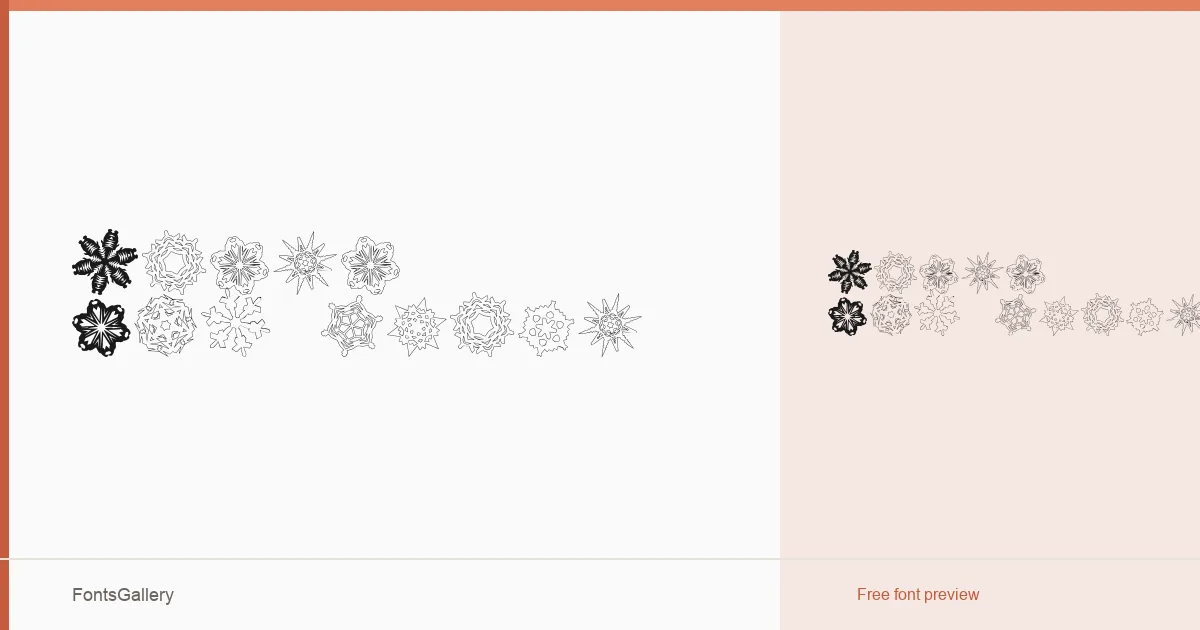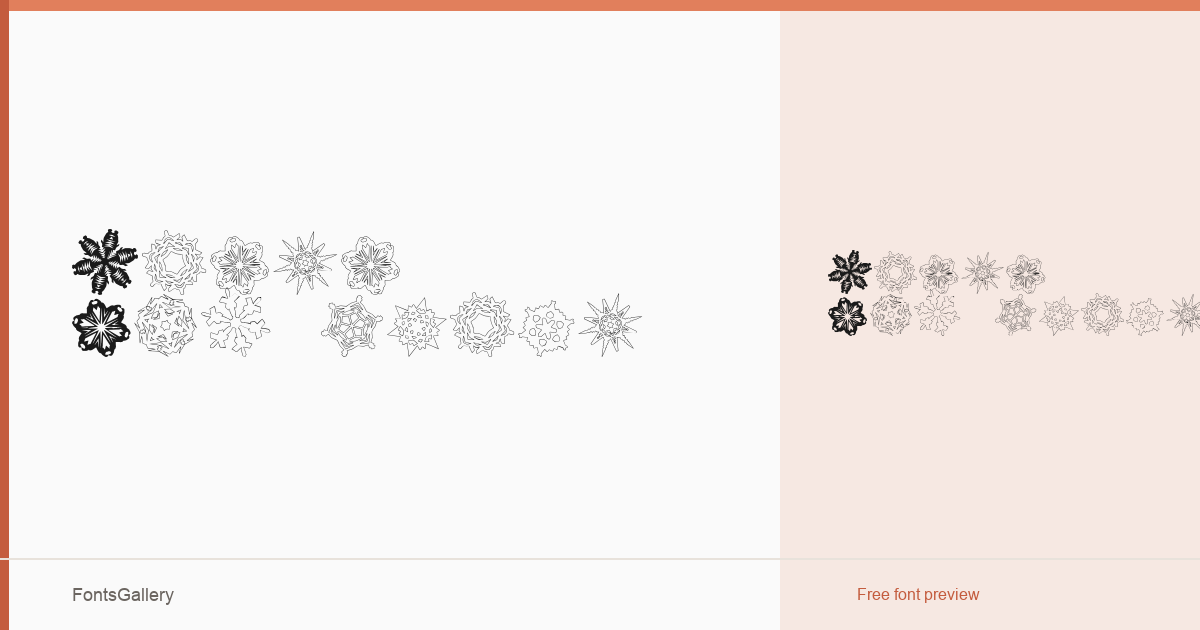
About Paper Snowflakes Font
Paper Snowflakes is a decorative typeface designed by Shara Weber, blending elegance and whimsy into every letterform. It captures a romantic and playful spirit that feels equally suited to intimate occasions and creative celebrations. With its distinctive character, Paper Snowflakes brings a sense of handcrafted charm and delicate artistry to any design project.
As a decorative font with elegant and romantic qualities, Paper Snowflakes features letterforms that feel refined yet full of personality, evoking the intricate beauty of delicately cut paper designs. Its whimsical touches give each character a light, airy quality that draws the eye without overwhelming a composition. The playful nature of the typeface ensures it remains approachable and expressive across a variety of creative contexts.
Paper Snowflakes is ideally suited for wedding stationery, invitation cards, greeting cards, certificates, and social media graphics where an elegant yet whimsical aesthetic is desired. Its decorative character makes it a natural choice for headings, titles, and accent text in romantic or celebratory designs. For a balanced and polished layout, consider pairing it with the clean neutrality of Helvetica or the complementary style of Aresink.